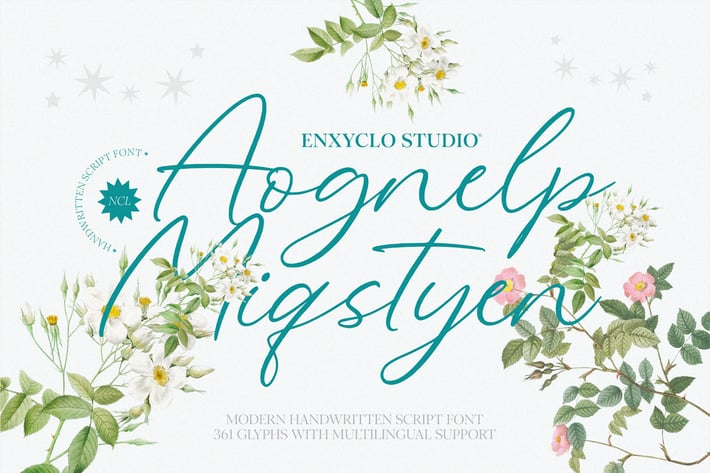
NCL Aognelp Miqstyen - Handwritten Script Font
NCL Aognelp Miqstyen is a modern handwritten script display font. Masterfully designed to become a true favorite, this font has the potential to bring each of your creative ideas to the highest level! It was purposely crafted to be used in large point sizes, although it doesn’t lose its magic in small point sizes. It is perfect for headline, digital ads, magazines, website, poster, branding, and logos. No matter the topic, this font will be an incredible asset to your fonts’ library, as it has the potential to elevate any creation. With this beautiful font, absolutely you can make your project stand out from the rest.
361 Unique Glyphs
13 Ligature
Numeral, Punctuation & Symbols